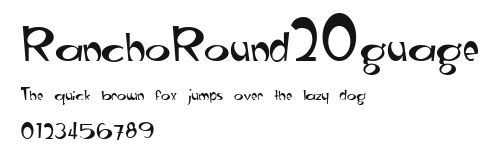
• Font Name: RanchoRound20guage
• Full Font Name: RanchoRound20guage
• Copyright: Font I.D. #5076894. Copyright 1995 [T-26] Chicago, IL. Designed by Michael G. Kippenhan.
About RanchoRound20guage.ttf
RanchoRound20guage.ttf is a modern, elegant sans-serif font designed for ultimate readability and visual harmony. Perfect for branding, headlines, web design, and print materials.